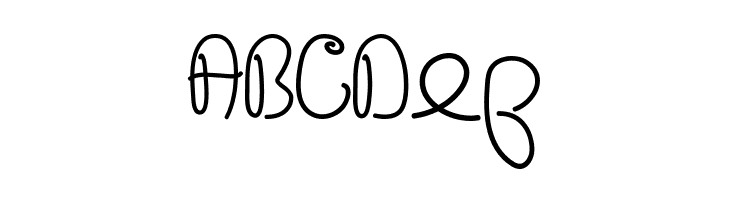
Testimoney Free Regular Font
- Font: Testimoney Free Regular
( Fonts by Blue Vinyl - Jess Latham - www.bvfonts.com )
A playful, curly handwritten font with a whimsical flair.